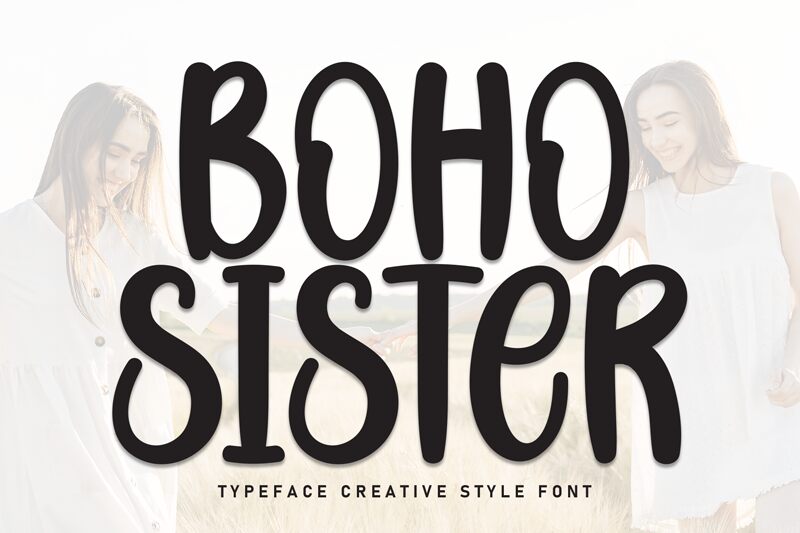
Boho Sister
Boho Sister font by Scratchones is a free brush font with a fun collection of letters that includes lowercase and numbers. The condensed width of this typeface projects style in a unique way due to the relaxed look that leaves an impression every time. Additionally, the size of each character varies adding further interest to your designs.
Business cards, branding presentations, and package labels are some options to experiment with when it comes to Boho Sister. Its retro inspiration makes posters, flyers, advertisements, social media promotion fancy and eye-catching as well.